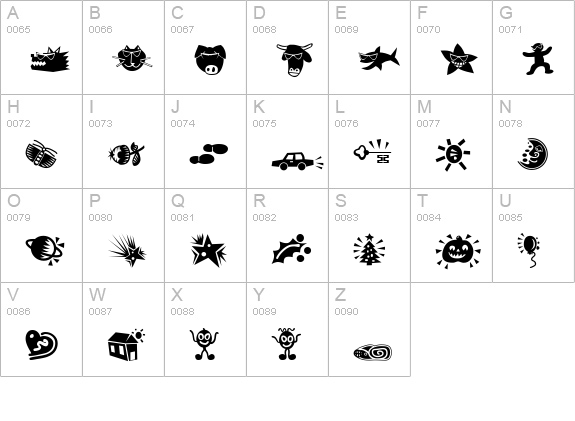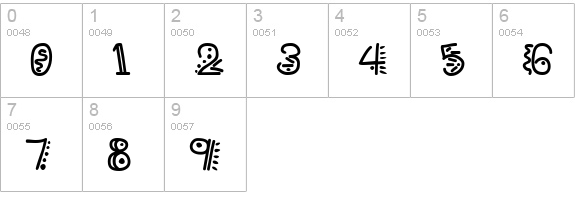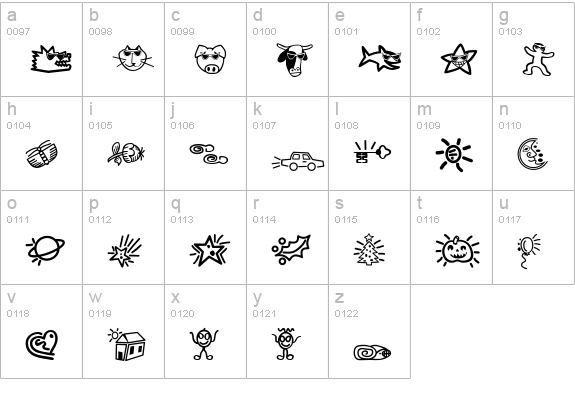
PopticsThreeExtras Font Details
PopticsThreeExtras font is a versatile and eye-catching typeface that will add a touch of creativity to any design project. With its playful and unique characters, this font is perfect for creating eye-catching headlines, posters, or social media graphics. The extra glyphs and decorative elements included in PopticsThreeExtras font give you the freedom to experiment and customize your designs in endless ways. Best of all, PopticsThreeExtras font is available for free download at FontsMarket.com. This means that you can easily access this stylish and modern font without any cost, making it a great choice for designers on a budget or anyone looking to add a fresh and fun element to their creative projects. Don't miss out on this fantastic opportunity to enhance your designs with PopticsThreeExtras font today!